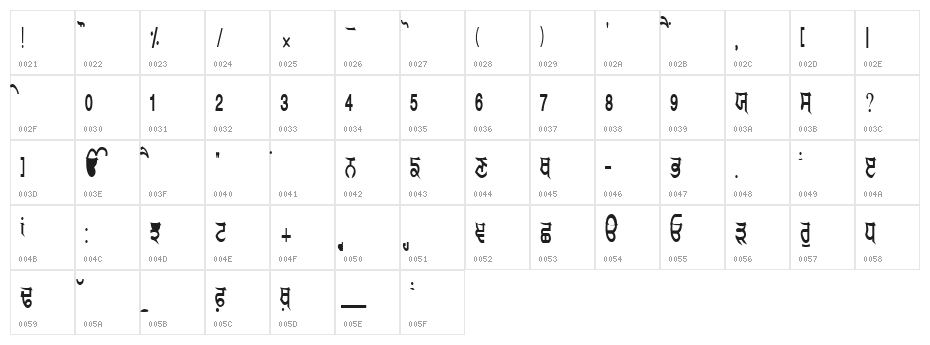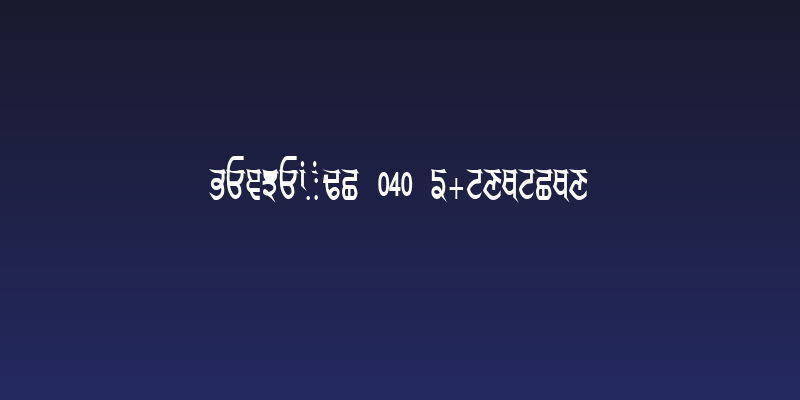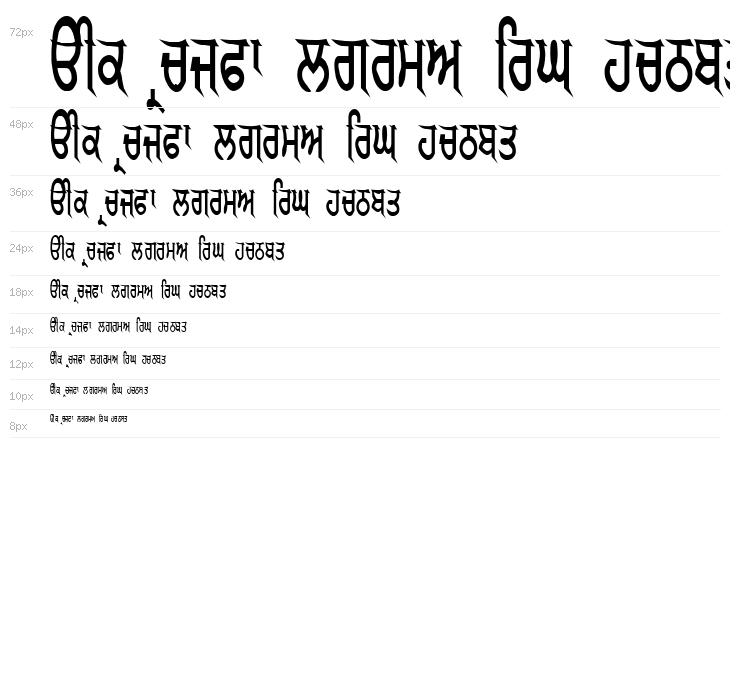
GurmukhiLys 040 Condensed Font
GurmukhiLys 040 Condensed Description
This font features a condensed style with a strong presence, characterized by its bold and angular strokes. The Gurmukhi script is presented with a modern twist, maintaining traditional elements while incorporating a contemporary flair. The numerals are clear and well-defined, complementing the overall aesthetic. Special characters are included, adding versatility to the font's application. The design is both functional and visually appealing, making it suitable for a variety of uses.